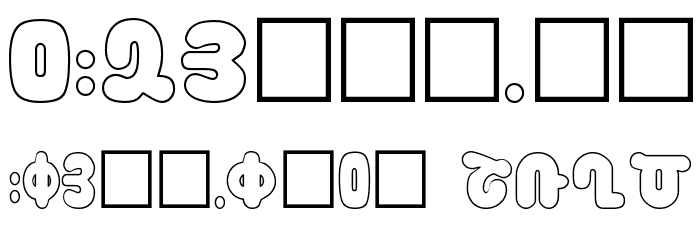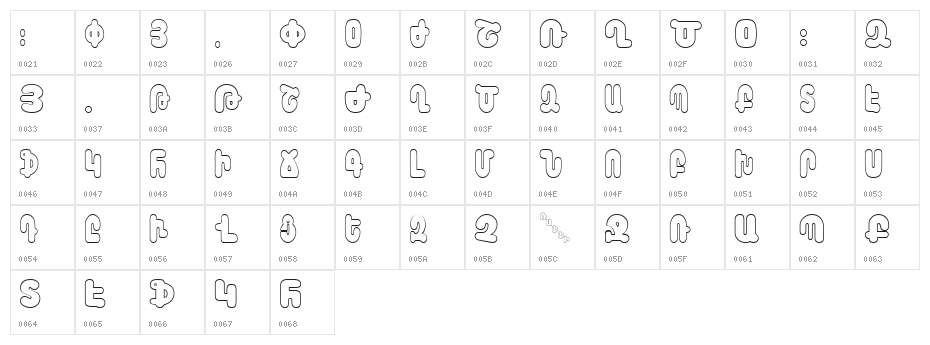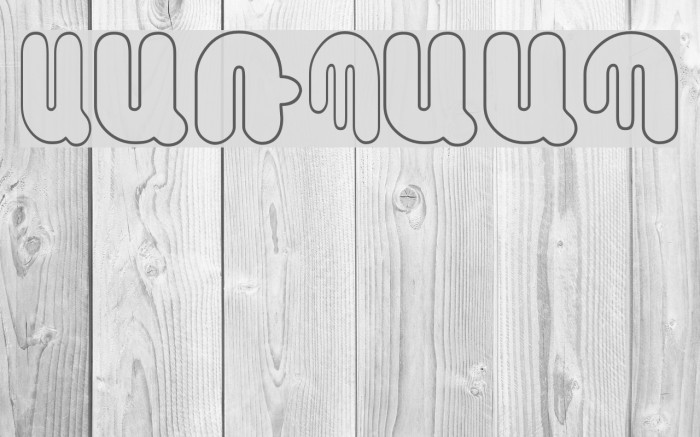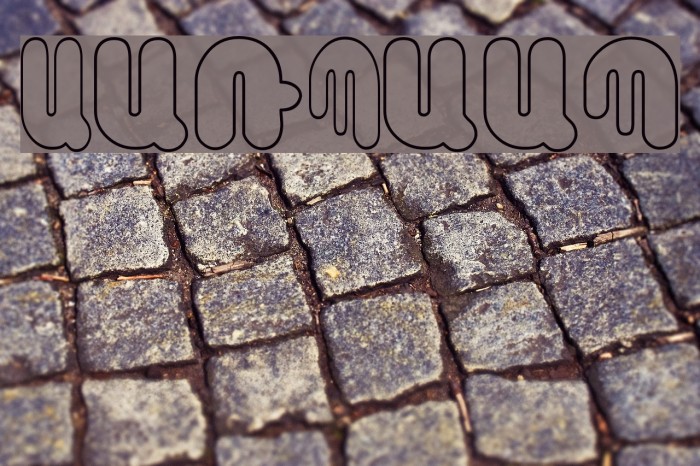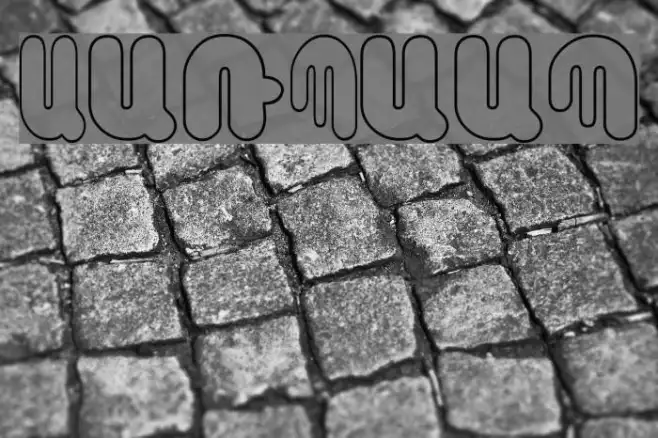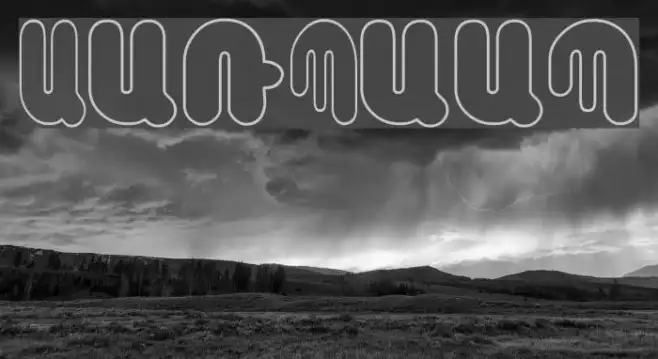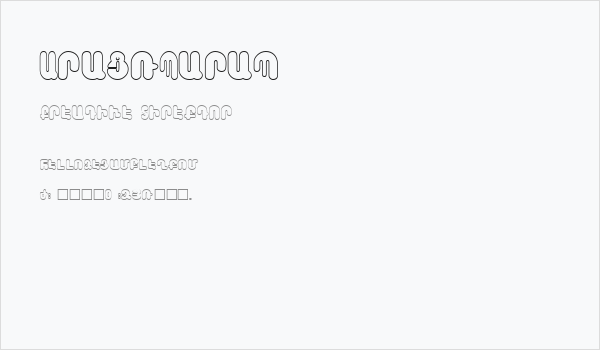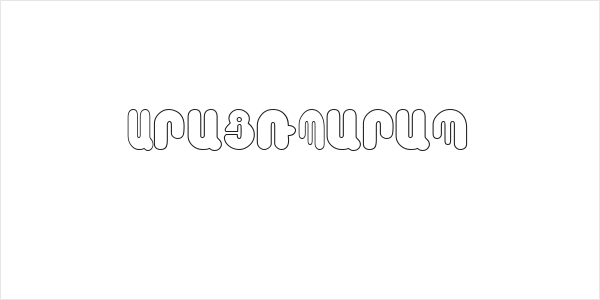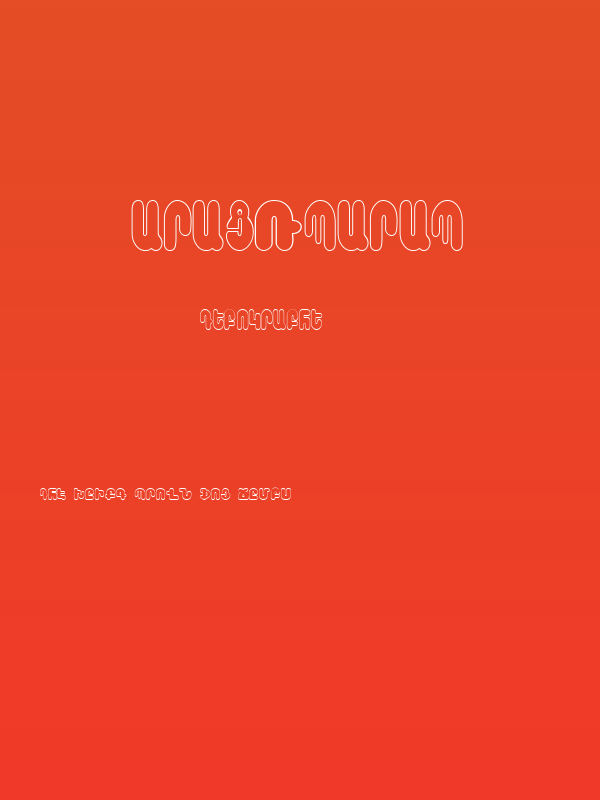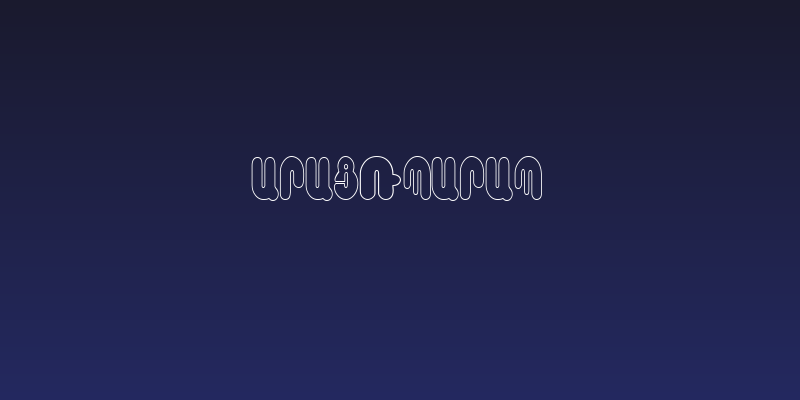
Arax-Barab Font
Arax-Barab Description
This font features a playful and bold design with rounded, bubble-like characters that create a sense of whimsy and fun. The letters are outlined, giving them a three-dimensional appearance, and the strokes are consistent in width, contributing to a uniform look. The style is reminiscent of retro or vintage aesthetics, often seen in designs from the 1970s. The characters are evenly spaced, providing a balanced and harmonious appearance. This font is particularly suitable for creative and informal projects, where a touch of nostalgia or playfulness is desired.
| Overall Style | Retro, Playful |
| Proposed Projects | Ideal for children's books, playful branding, retro-themed posters, and creative social media graphics. |